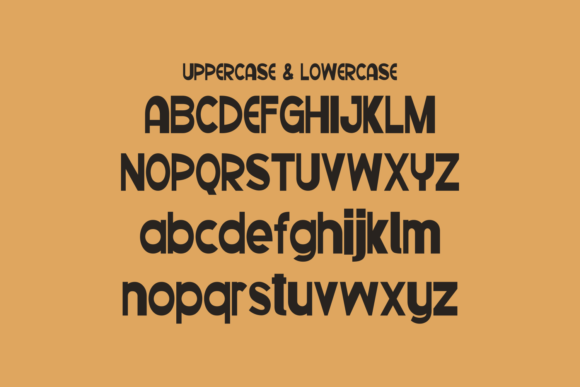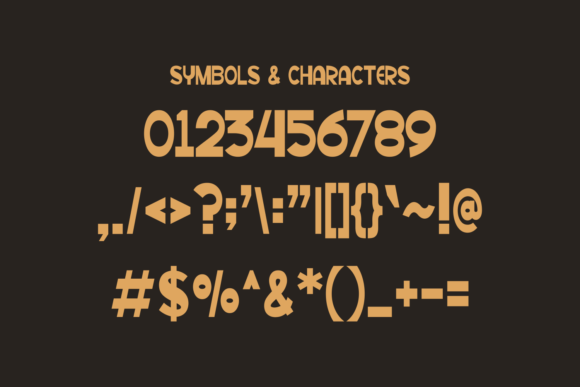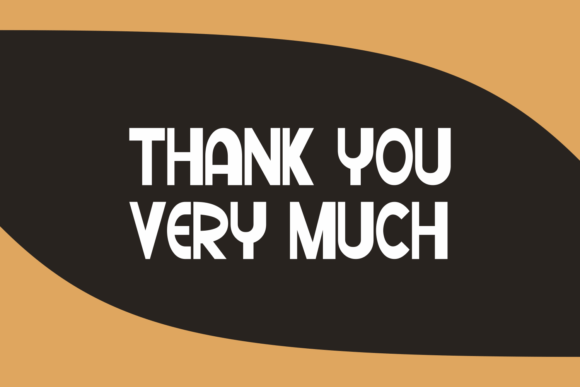
The Perfect Typography Companion: Aumon Font
Have you ever stared at a blank page, eager to bring a concept to life, but struggling to find the right words to express your vision? That’s when the magic happens – when the perfect combination of creativity and typography comes together to breathe new life into your project. For designers, the right font can be the difference between a good design and a great one.
Enter the Aumon Font, a bold and assertive sans serif font that’s sure to elevate any creation. This versatile font is designed to make a statement, whether you’re working on a logo, a brochure, or a website. With its clean lines and modern feel, the Aumon Font is the perfect companion for any design project.
Whether you’re a seasoned designer or just starting out, the Aumon Font is a valuable addition to your font library. Its versatility and assertive style make it an ideal choice for any project, and its potential to elevate your designs is limitless.
Aumon Font Key Features
- Font Family: Aumon is a sans-serif font family.
- Size and Resolution: Available in 7 weights (Thin, Light, Regular, Medium, Bold, Heavy, Black), each with a range of 12-24pt sizes, suitable for print and digital applications.
- Unique Characteristics: Aumon features a clean, modern design with rounded corners and subtle flair at the terminals, making it highly legible and suitable for body text and headings.
Aumon Font Review
Overall, I’m quite impressed with Aumon Font, but as with any typeface, it has its strengths and weaknesses.
- Unique Style: Aumon Font has a distinctive, elegant design that sets it apart from other sans-serif fonts.
- High Legibility: The font is well-suited for body text and is easy to read, even at smaller font sizes.
- Good for Branding: Aumon Font’s modern aesthetic makes it a great choice for logos, headers, and other branding materials.
- Limited Character Set: Aumon Font’s character set is somewhat limited, making it less suitable for complex documents or languages that require a wide range of characters.
- No Italic or Bold Weights: The font only comes in regular weight, which may not be ideal for emphasis or contrast.
Overall, I’d recommend Aumon Font for projects where a modern, elegant design is key. However, its limitations may make it less suitable for more complex or demanding projects.
Tips for Getting the Most Out of Aumon Font
1. Experiment with different font sizes and styles to create visual interest.
2. Pair Aumon font with other fonts to create a unique and visually appealing design.
3. Use Aumon font for headings and titles to create a clear hierarchy of information.
Common Use Cases for Aumon Font
Aumon font is ideal for:
Alternatives to Aumon Font for Designers
Montserrat is a sans-serif font that is highly legible and versatile. It is ideal for use in digital interfaces, headings, and body text. Montserrat is more geometric and modern compared to Aumon Font, which is more elegant and refined. It is a popular choice for designers who want a clean and minimal look.
Lato is a sans-serif font that is highly readable and suitable for both digital and print media. It is a great choice for designers who want a modern and elegant look without the sophistication of Aumon Font. Lato is more rounded and friendly compared to Aumon Font, making it ideal for use in branding and advertising.
Open Sans is a highly legible sans-serif font that is designed for digital interfaces. It is a great choice for designers who want a clean and modern look without the elegance of Aumon Font. Open Sans is more neutral and straightforward compared to Aumon Font, making it ideal for use in digital products and websites.